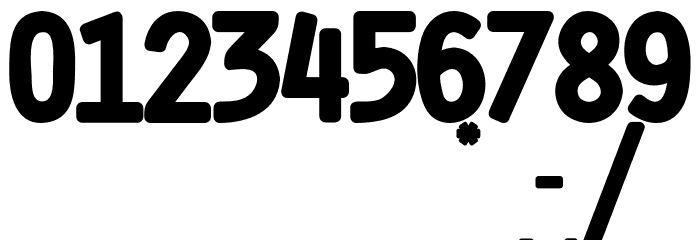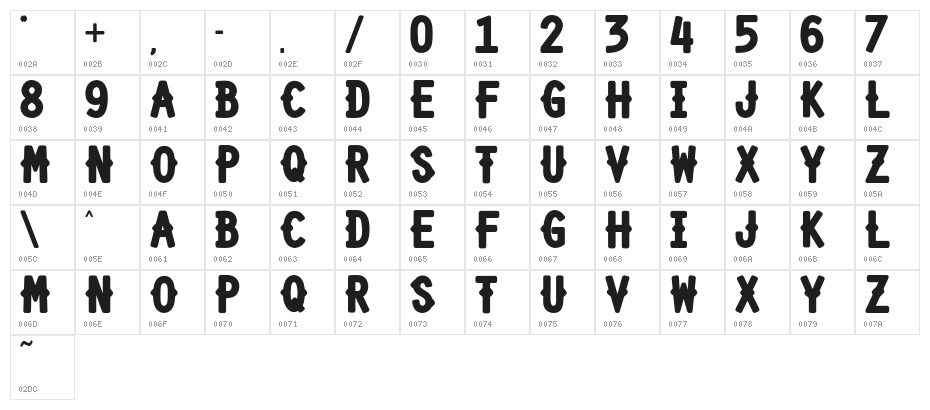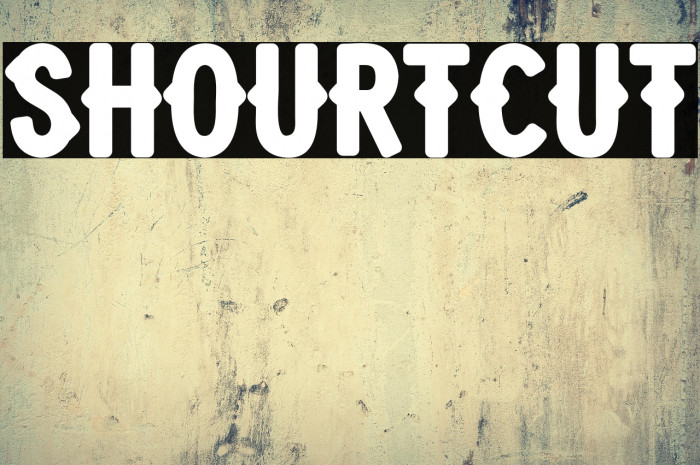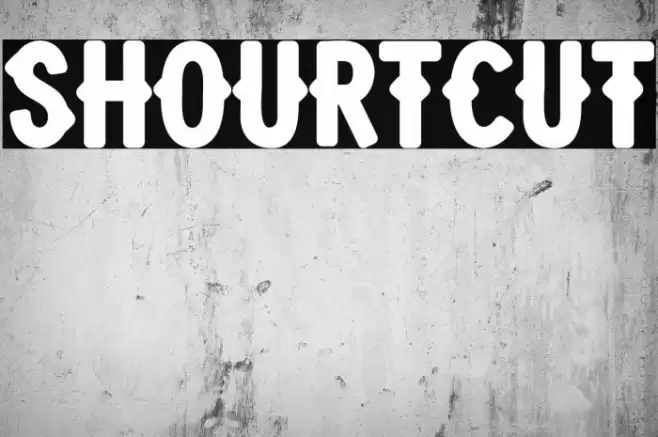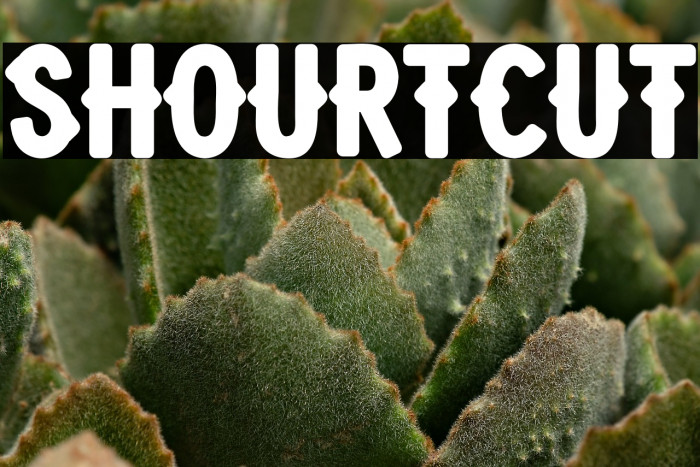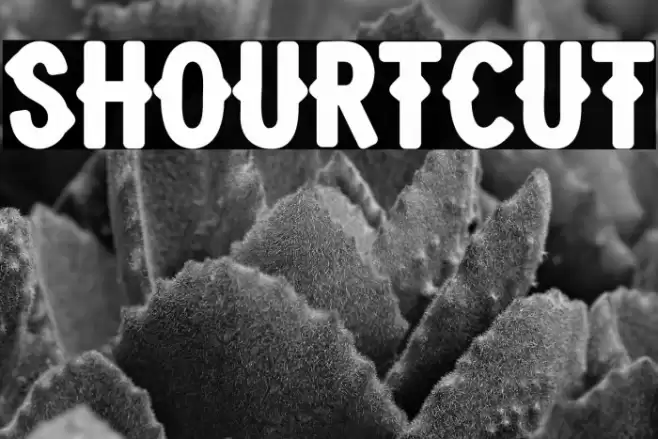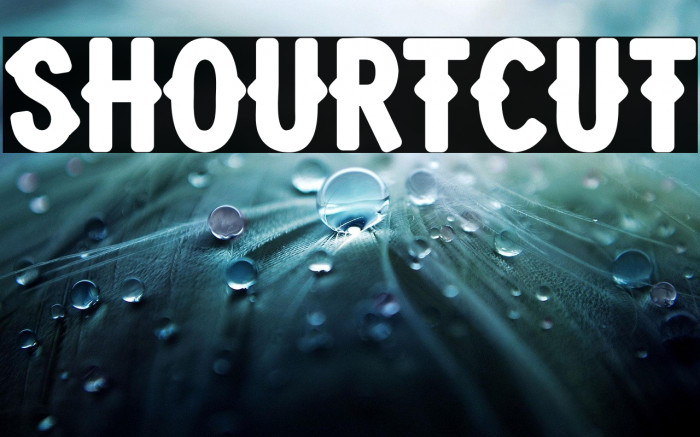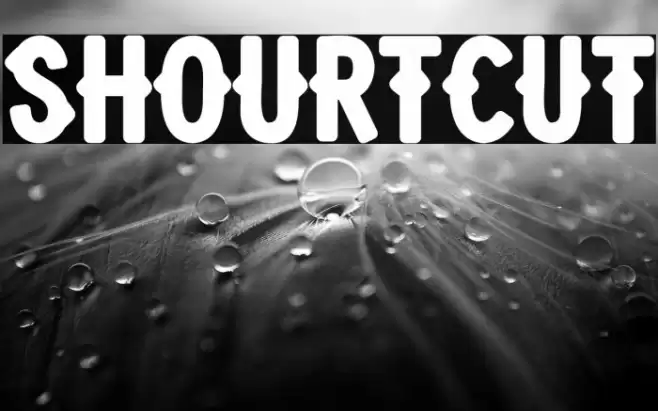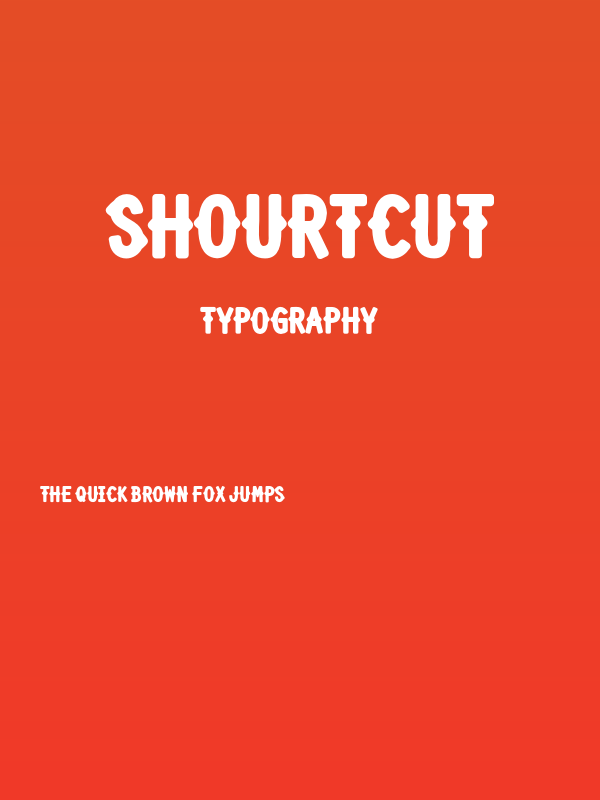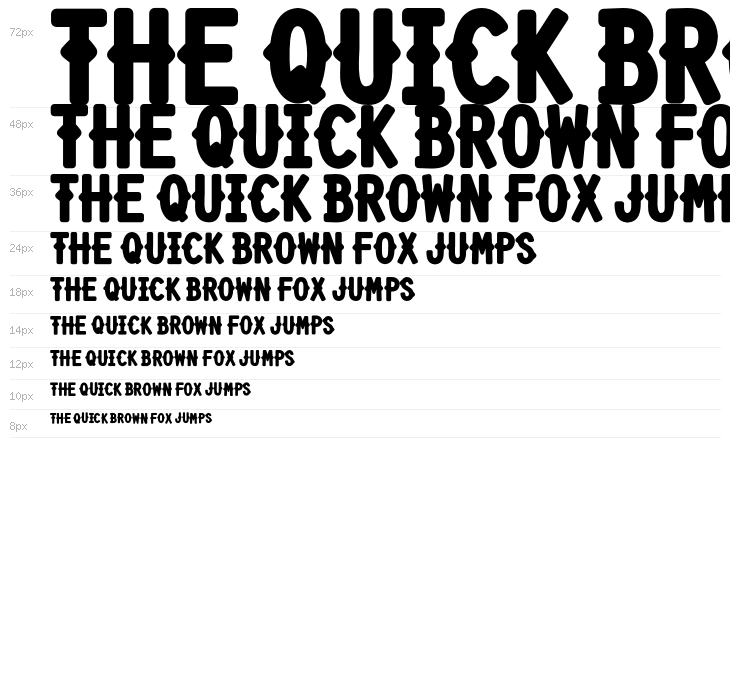
Shourtcut Font
Shourtcut Description
This font features a bold and playful design, characterized by its thick, rounded strokes and uniform weight across all characters. The letters are slightly condensed, giving them a compact appearance, while maintaining readability. The style is reminiscent of retro or vintage signage, with a touch of modern flair. The numbers and special characters follow the same design principles, ensuring consistency throughout. This font's unique personality makes it suitable for projects that require a fun and approachable aesthetic.